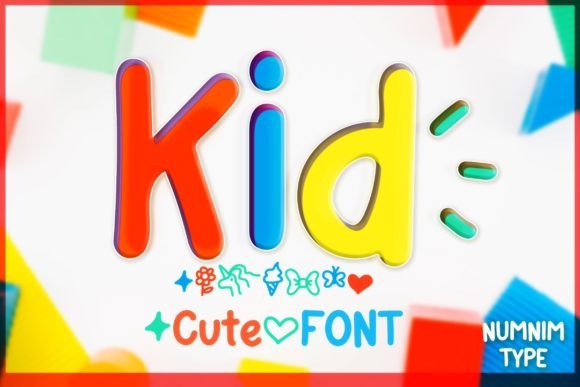
Introducing Kid Font, the ultimate script font for Mother's Day and beyond! Created by the talented numnim, this font is a delightful blend of cuteness, vibrancy, and authenticity. Whether you're working on a children's activity or a school project, Kid Font is here to add a touch of magic to your designs.
With its playful and colorful handwritten style, Kid Font brings a sense of joy and excitement to any creative endeavor. The chunky lettered characters are specially crafted to make your projects come alive and capture the attention of your audience. Imagine the smiles on children's faces as they interact with your beautifully crafted materials!
But Kid Font is not just about aesthetics. It's also incredibly functional and user-friendly. Thanks to its PUA encoding, accessing the vast array of amazing glyphs and ligatures is a breeze. These additional characters allow you to truly personalize your designs and create unique typographic compositions that stand out from the crowd.
When it comes to marketing, emotions play a crucial role. And Kid Font knows exactly how to tug at heartstrings. Whether you're designing a heartfelt Mother's Day card or creating a captivating advertisement, this font will help you express your emotions in the most captivating way possible. Its warm and inviting nature will instantly create a connection with your audience, making them fall in love with your message.
Let your creativity run wild with Kid Font! From children's books to party invitations, this font is the perfect companion for all your design needs. Its versatility knows no bounds, allowing you to effortlessly create stunning visuals that leave a lasting impression.